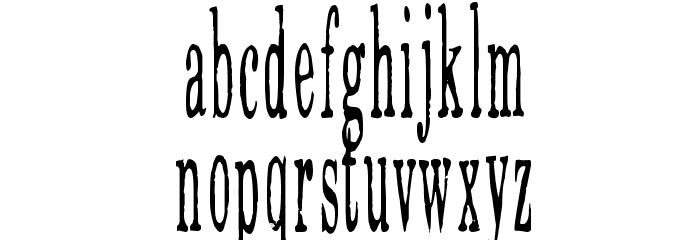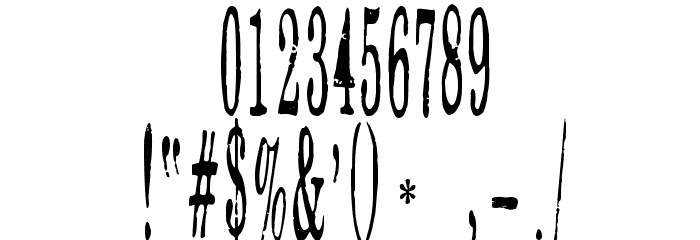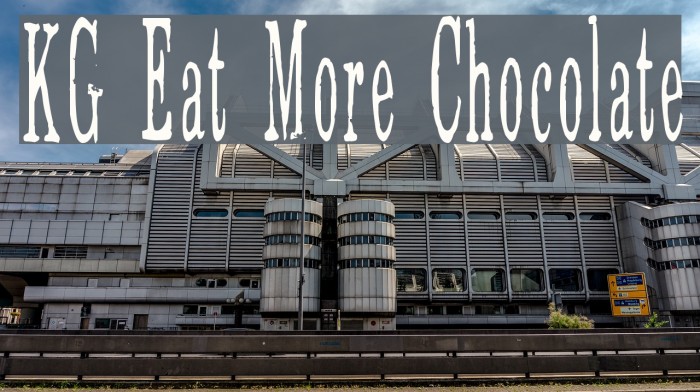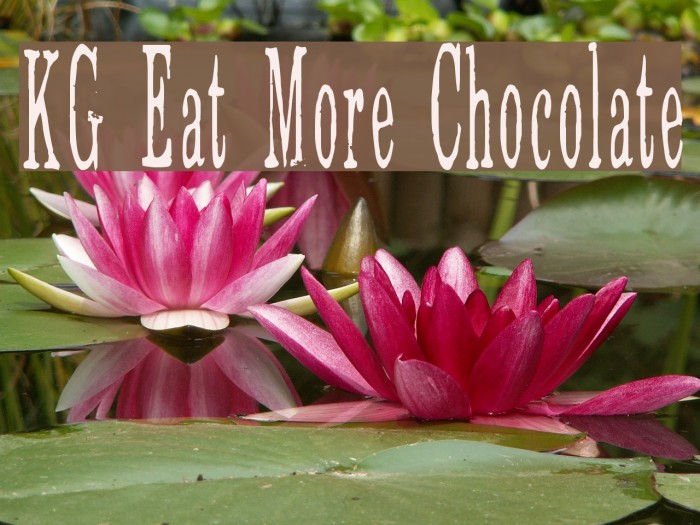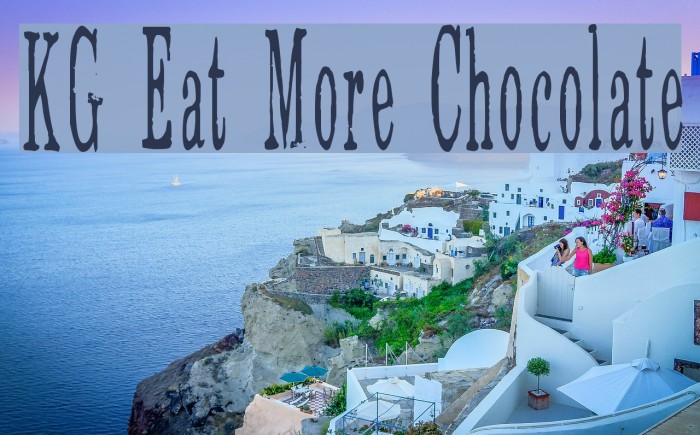
KG Eat More Chocolate Font
This font features a distressed, vintage style with uneven edges and a hand-crafted appearance. The uppercase letters are tall and narrow, while the lowercase letters maintain a consistent height, creating a cohesive look. Numbers and special characters follow the same distressed aesthetic, adding to the overall rustic charm. The font's unique texture gives it a worn, aged feel, reminiscent of old typewriter or letterpress prints. This style is perfect for projects that aim to evoke nostalgia or a handcrafted, artisanal vibe.
A distressed, vintage-style font with a hand-crafted appearance.
- Proposed Projects: Ideal for vintage-themed designs, posters, branding for artisanal products, and any project seeking a rustic, nostalgic feel.
- Character Spacing: Tight
- Overall Style: Vintage